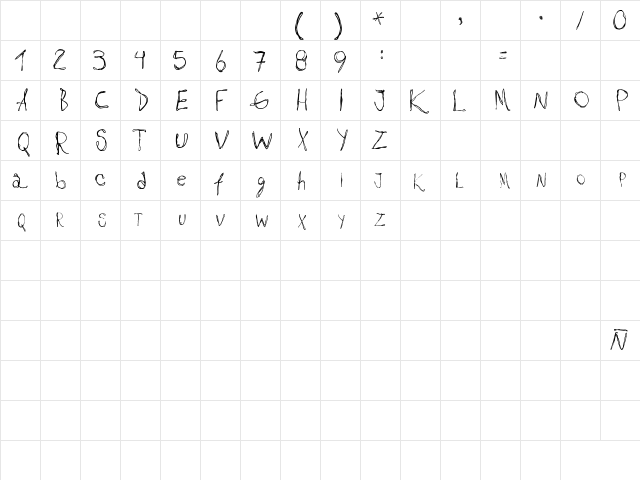
maribel Regular Font Preview
maribel Regular
maribel Regular Font Details
Design Context for maribel Typeface
maribel is a composed and adaptable typeface that performs quietly and consistently across a wide range of design contexts.